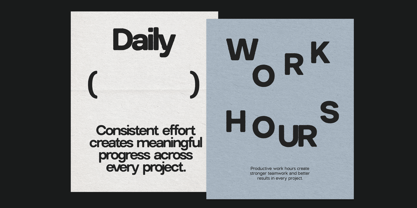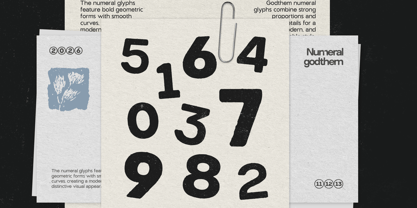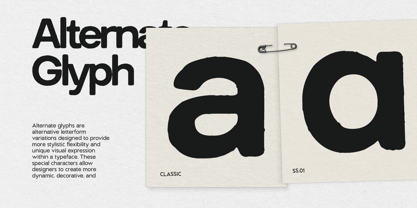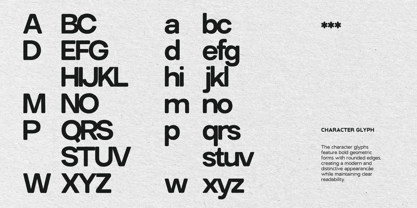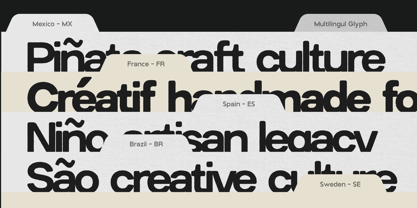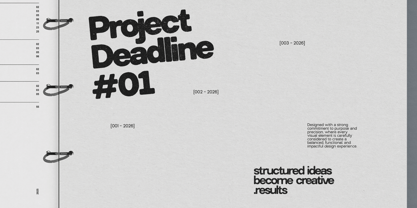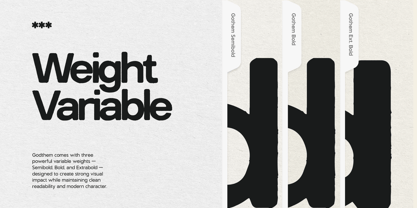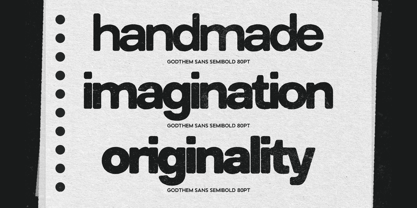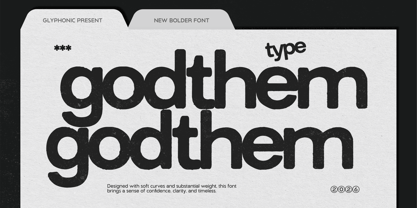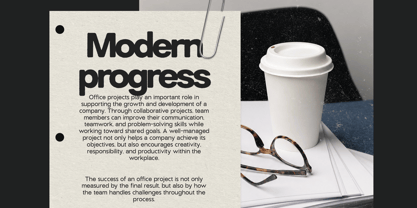
GC Godthem
The GC Godthem Font Family was designed by Muhammad Hafiizh Solana and published by Onyx Studio. GC Godthem contains 3 styles and family package options. More about this family
GC Godthem – Display Grunge Sans is a bold display sans typeface designed to deliver raw energy, rebellious character, and striking visual impact. Built with strong letterforms and distressed grunge textures, Godthem creates an expressive typographic voice that feels unapologetic, bold, and full of attitude.
With its rugged details, worn edges, and powerful structure, GC Godthem blends modern sans-serif clarity with an authentic grunge aesthetic. The distressed appearance adds depth and personality, making every headline feel dynamic, aggressive, and visually memorable.
As a variable typeface, GC Godthem offers flexible weight control, allowing designers to create impactful hierarchy while preserving its distinctive grunge character across every style. From bold streetwear branding to underground music visuals and edgy editorial layouts, the font maintains a strong and recognizable presence.
Crafted for posters, album covers, fashion branding, gaming graphics, social media campaigns, and alternative visual identities, GC Godthem brings raw texture and expressive energy into modern typography.
Features:
• Variable Font (Adjustable Weight Axis)
• Display Grunge Sans Construction
• Uppercase & Lowercase
• Numbers & Punctuation
• Distressed & Textured Letterforms
• Bold Urban Character
• Multilingual Support (170+ Languages)
GC Godthem — raw, bold, and unapologetically grunge.